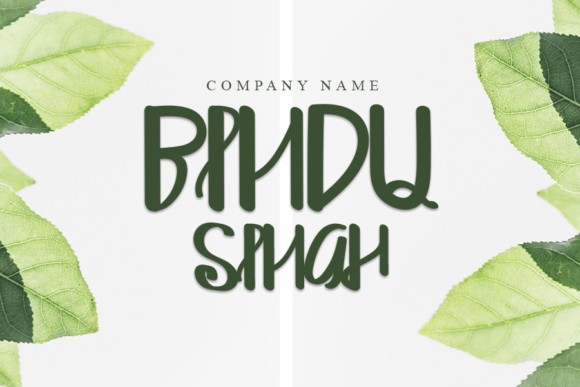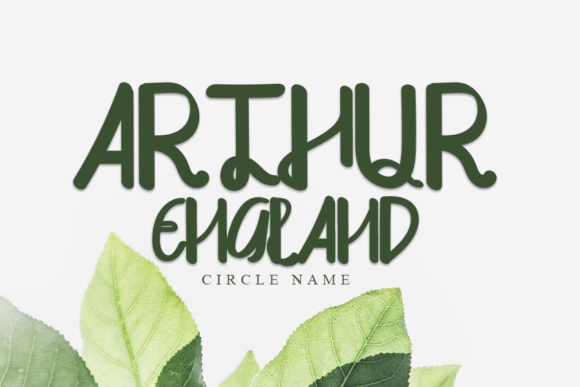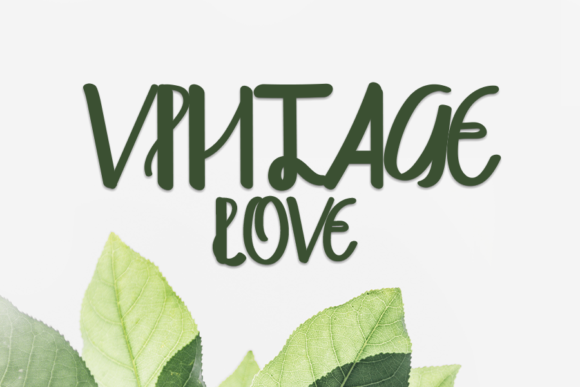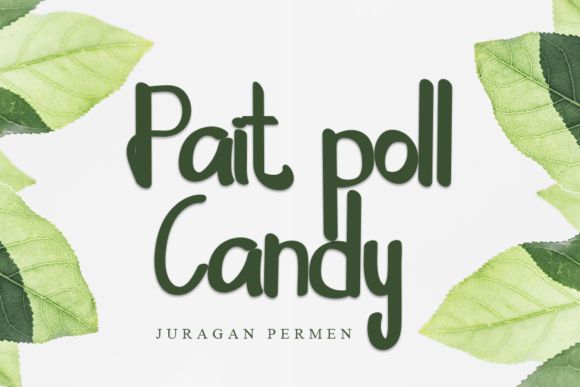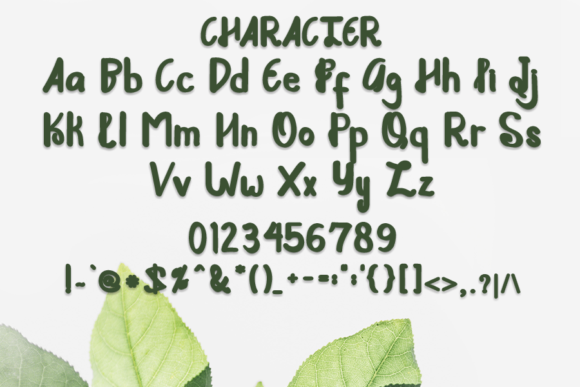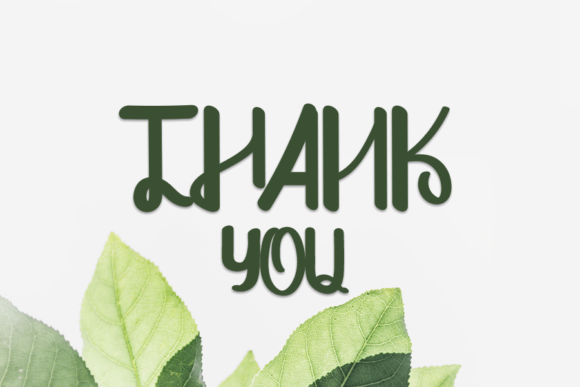
Introduction to Pords Queens Font
Have you ever been working on a creative project, pouring your heart and soul into it, only to realize that the perfect font is missing? That’s exactly what happened to me when I stumbled upon the Pords Queens Font. Its adorable handwritten style and friendly feel instantly captured my attention, and I knew I had to share it with the world.
As a design enthusiast, I can attest that having access to high-quality fonts like Pords Queens Font is a game-changer. It’s a valuable resource for any creative project, from social media graphics to DIY calligraphy scripts. With its transparent background and free download option, you can easily incorporate it into your design workflow.
Whether you’re a seasoned designer or a beginner, Pords Queens Font is sure to bring a touch of whimsy and personality to your work. In this article, we’ll delve into the world of this charming font and explore its many uses and benefits.
Pords Queens Font
- Unique characteristic: Unique letterform design with subtle flair
- Perfect for use in logos, branding, and creative compositions
Honest Review: Pords Queens Font
As a designer, I’m always on the lookout for high-quality design resources to elevate my creative projects. Pords Queens Font has caught my attention, and I’m excited to share my honest review.
- ✨ Unique and elegant design style that’s perfect for luxury and premium branding.
- ✨ High-quality font files with transparent backgrounds, making it easy to use in various design scenarios.
However, I do have some concerns:
- ⚠️ Limited character set, which might not be ideal for longer text-based projects.
Overall, Pords Queens Font is a solid design resource that can add a touch of sophistication to your creative projects. While it has some limitations, its unique design style and high-quality font files make it a worthwhile download. If you’re looking for a premium font to elevate your branding or design work, Pords Queens Font is definitely worth considering.
Transparent Background
Pords Queens Font features a transparent background, making it ideal for use in creative projects that require a clean and minimalist design aesthetic.
To get the most out of Pords Queens Font, use it in conjunction with other design elements, such as images and graphics. Experiment with different font sizes and styles to create a unique and eye-catching design.
Pords Queens Font is commonly used in:
- Brochures
Is Pords Queens Font suitable for high-quality design projects?
Yes, the Pords Queens Font is a high-quality design resource that is suitable for a wide range of design projects, from brochures and business cards to websites and mobile apps. The font’s clean and modern design makes it a great choice for designers who want to create visually appealing and professional-looking designs.